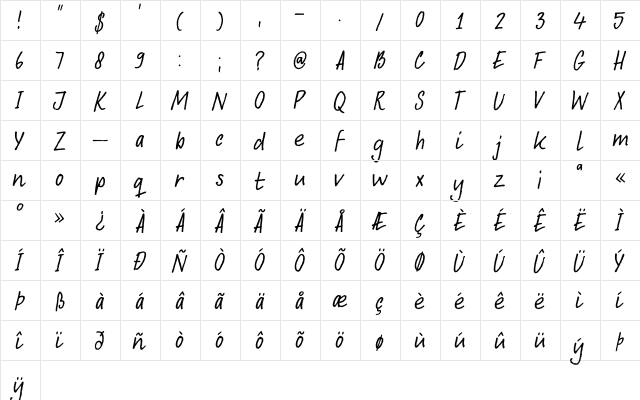
DK Abelia Regular
| Foundry | David Kerkhoff |
| Designer | David Kerkhoff |
Design Context for DK Abelia Typeface
DK Abelia is a composed and adaptable typeface that performs quietly and consistently across a wide range of design contexts.